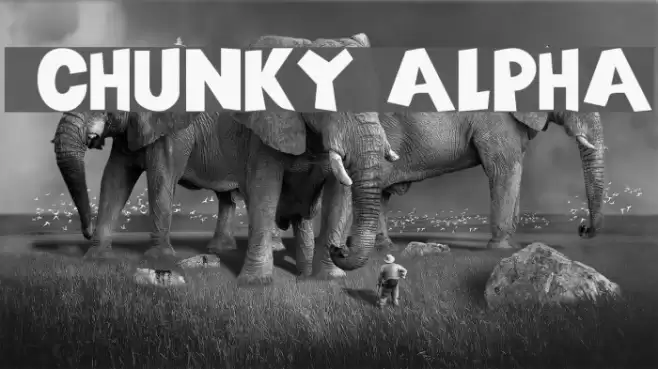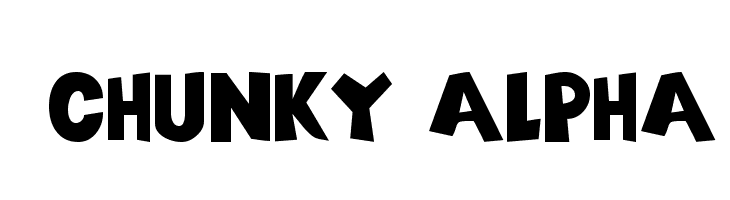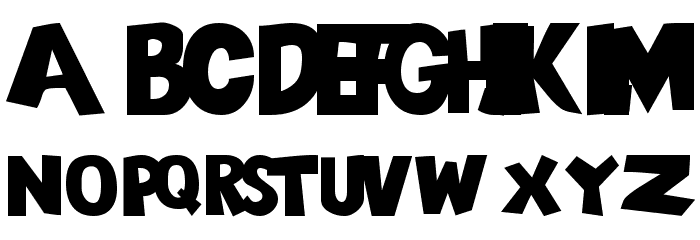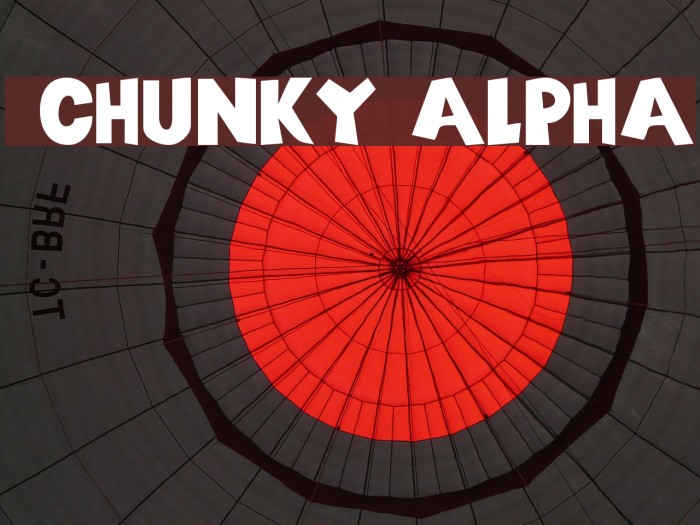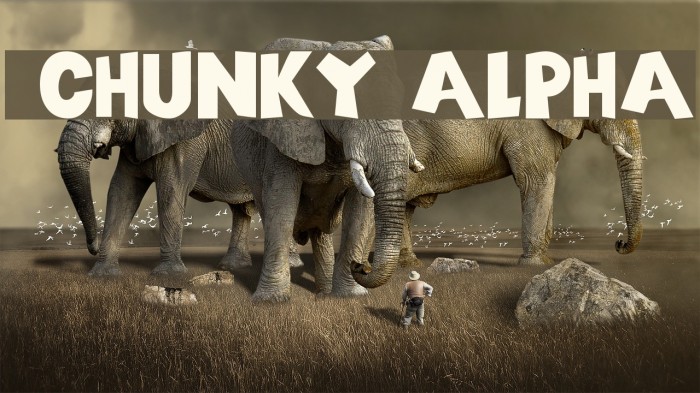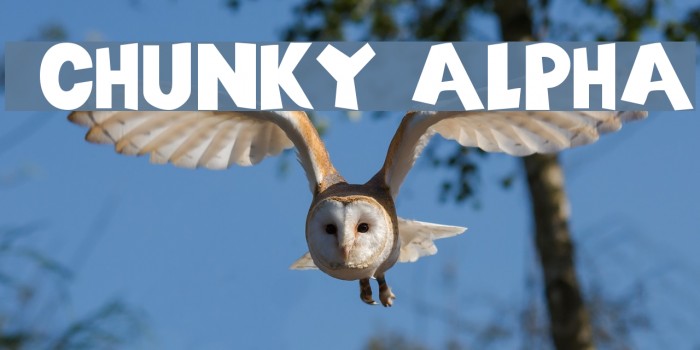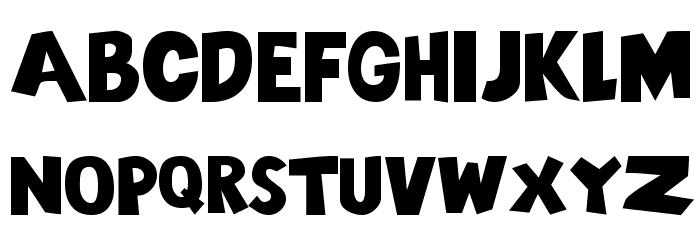
101! Chunky Alpha Font
101! Chunky Alpha Description
This font features bold, chunky letters with a playful and dynamic appearance. The characters are heavily weighted, creating a strong visual impact. The strokes are thick and consistent, giving the font a robust and solid feel. The overall design is slightly irregular, adding a whimsical and informal touch. The uppercase letters are particularly striking, with a sense of movement and energy. This font is well-suited for projects that require a bold and eye-catching typeface, such as posters, headlines, and branding materials.
A bold, chunky font with a playful and dynamic style from Uncategorized fonts.
- Proposed Projects: Ideal for posters, headlines, branding, and any project needing a strong visual impact.
- Overall Style: Playful, Dynamic
- Use Case: Headlines, Posters, Branding